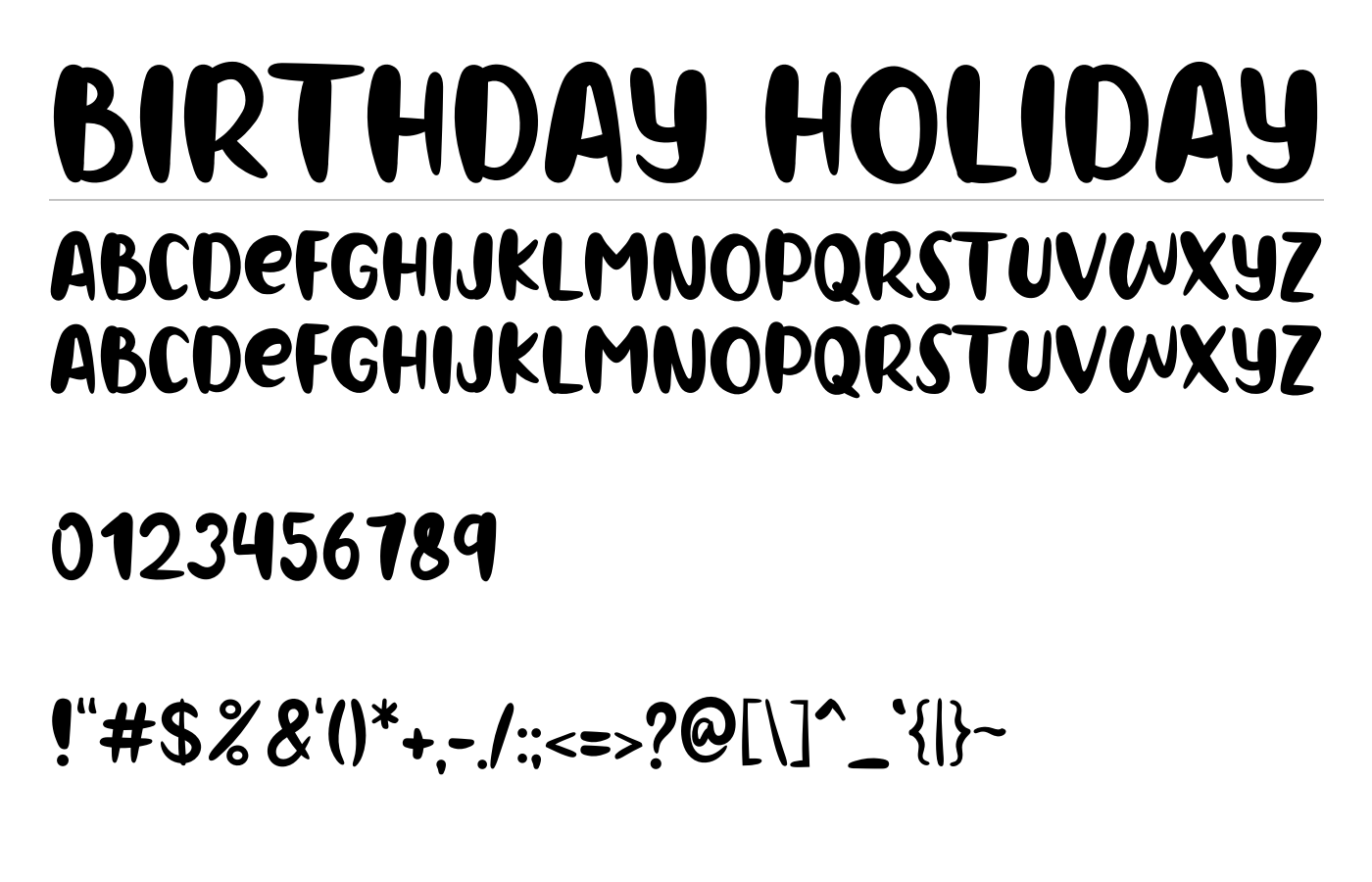
Birthday Holiday is a playful and bold handwritten sans serif font with a casual, friendly feel. Its rounded, slightly irregular letterforms and thick strokes make it perfect for fun and informal designs such as party invitations, children’s products, and cheerful branding. This font works best in headlines or display use where a lively and approachable personality is desired.
BIRTHDAY HOLIDAY Font
About BIRTHDAY HOLIDAY Font
| Font family | BIRTHDAY HOLIDAY Font |
| Designer | ANDRIYANTO AU |